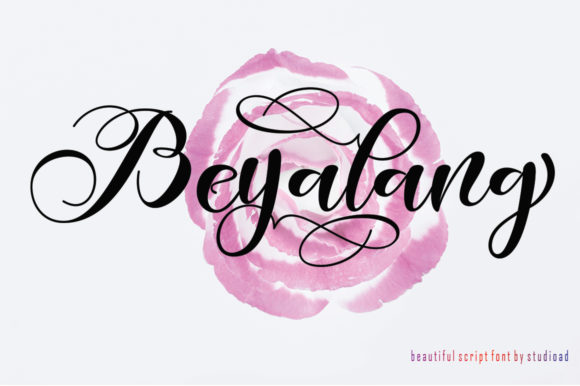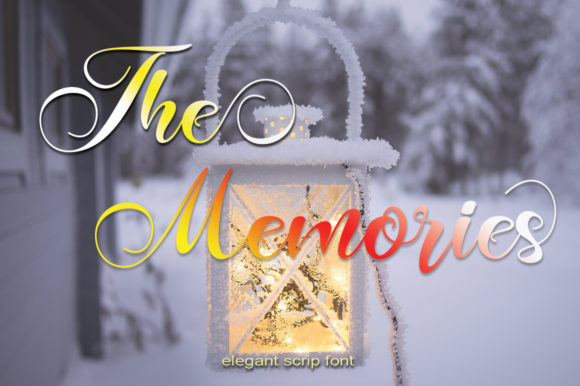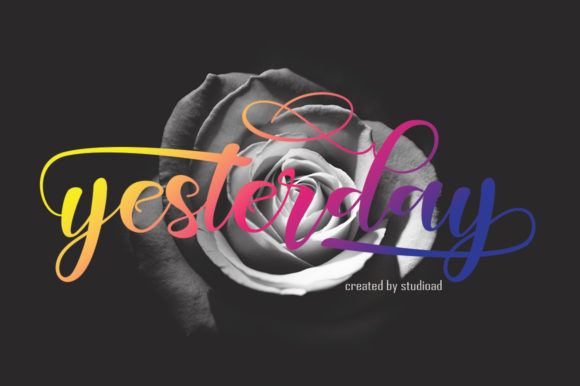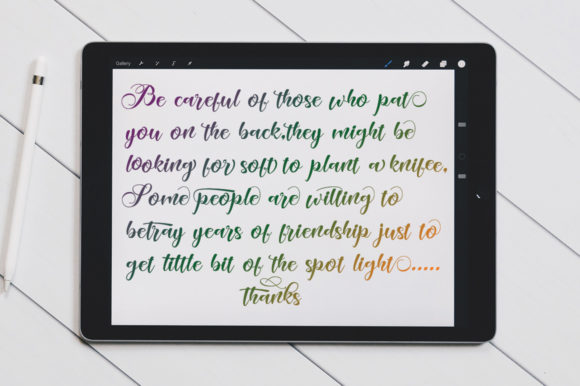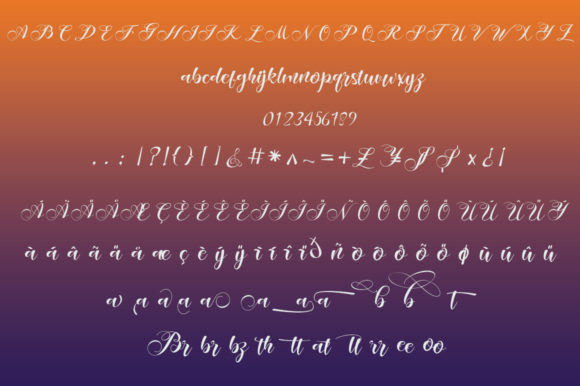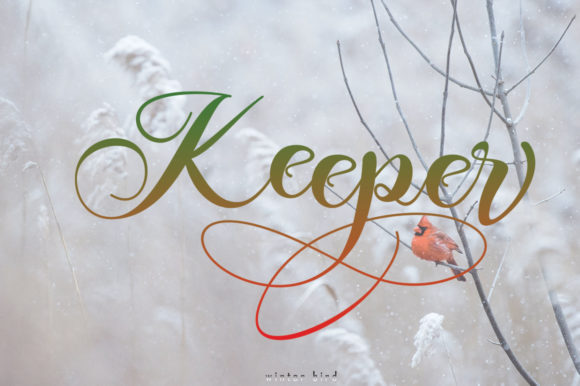
The Enchanting Antonega Font: A Designer’s Delight
I’ll never forget the moment I stumbled upon the Antonega font. I was working on a project for a client who wanted an elegant, high-end look for their branding. I had spent hours scouring the internet for the perfect font, but nothing seemed quite right. That was until I saw Antonega – its smooth, charming lines moved like an elegant dancer across my screen, and I was immediately smitten.
So, what makes Antonega so special? Here are a few things that have won me over:
- ✨ Smooth, elegant lines: Antonega’s curves are smooth and flowing, making it perfect for projects that require a touch of sophistication.
- ✅ Rich swashes: The font’s swashes add a level of elegance and drama to any design.
- 💫 Versatility: Antonega works beautifully in a variety of contexts, from headings and titles to body text.
Of course, no font is perfect, and Antonega has a few quirks to be aware of:
- 🤔 Limited use in small sizes: While Antonega is stunning in larger sizes, it can become a bit tricky to read in smaller sizes.
- ⚠️ Some swashes may not work well with all languages: As with any font that features swashes, some may not work well with certain languages or character sets.
The Story Behind Antonega
The creator of Antonega, a talented typographer, was inspired by the world of dance and the elegance of ballet. They aimed to capture the fluidity and poise of a dancer in motion, resulting in a font that’s both beautiful and functional.
| Font Name | Antonega Font |
| Author | studioad56 |
| What makes Antonega unique? | Antonega stands out for its smooth, elegant lines and rich swashes, making it perfect for designs that require sophistication and charm. |
| Is Antonega suitable for body text? | While Antonega is stunning for headings and titles, it may not be the best choice for long body text due to its elegant, cursive nature. |